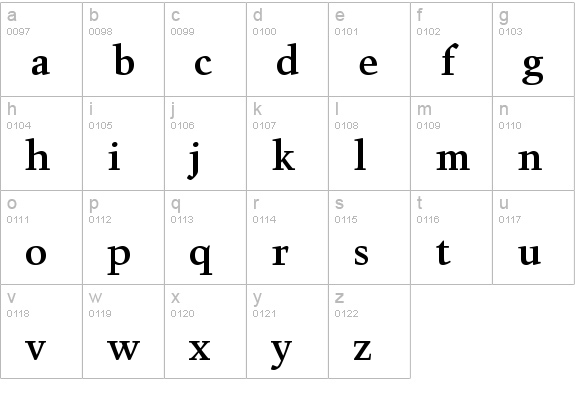
Figural Std Medium Font Details
Figural Std Medium is a balanced, medium-weight variant in the Figural typeface family \xE2\x80\x94 well suited to sub-headlines, navigation, and balanced editorial work.
Figural Std Medium font is a versatile and modern typeface that offers a perfect balance between elegance and readability. With its clean lines and distinctive shapes, this font is ideal for a wide range of design projects, from branding to editorial design. The medium weight of the font provides a balanced and professional look that is suitable for both headings and body text. What's even better is that Figural Std Medium font is available for free download at FontsMarket.com. This means you can easily access this high-quality font to enhance your design projects without any additional costs. Don't miss out on the opportunity to add Figural Std Medium font to your font library today!